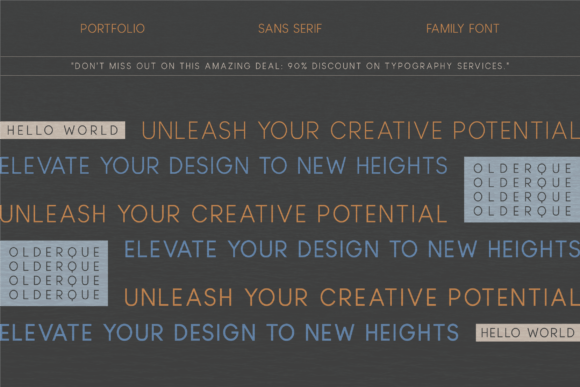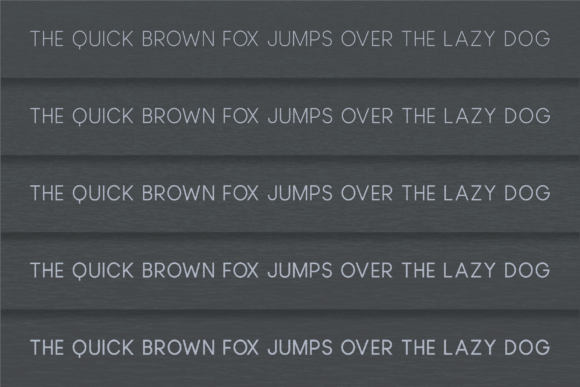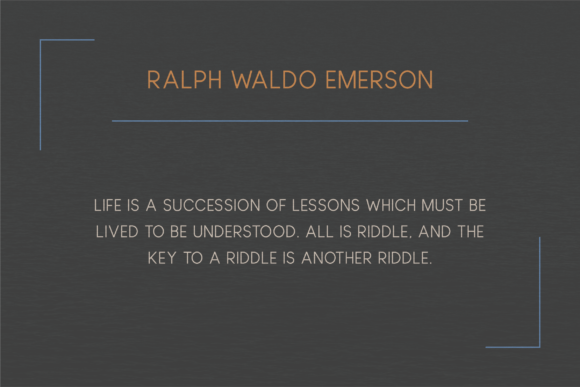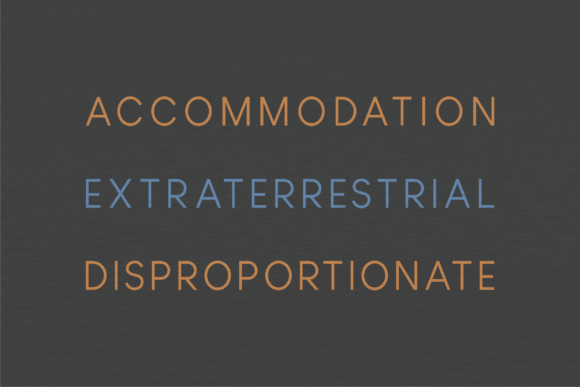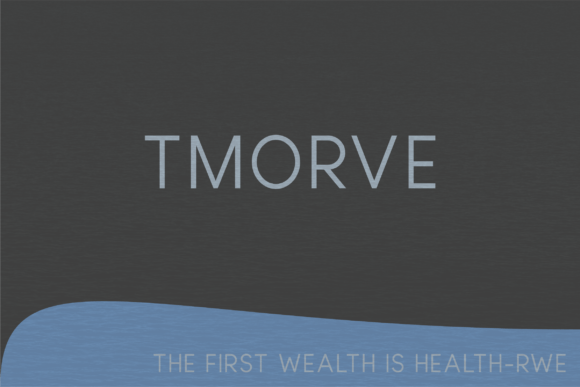
Introduction to Olderque Font
Introducing the gracefully unique Olderque font family – an amalgamation of minimalistic elegance at its finest.
Consisting of five uniquely distinct weight variations, this sans serif font compilation immaculately highlights the fine balance between modern sophistication and luxurious indulgence Meticulously designed with unerring attention to detail, it’s a font that seamlessly uplifts the aesthetic quotient of any project it’s applied to, be it a glossy magazine, an eye-catching logo, or an engaging film poster.